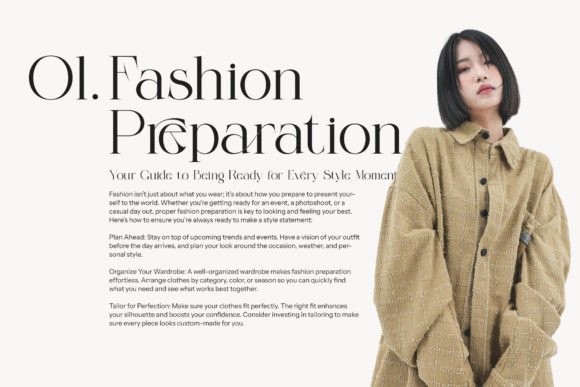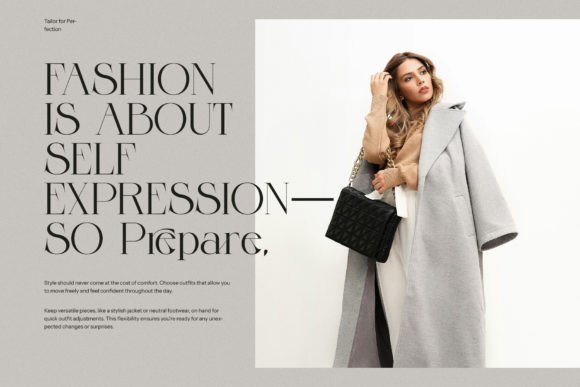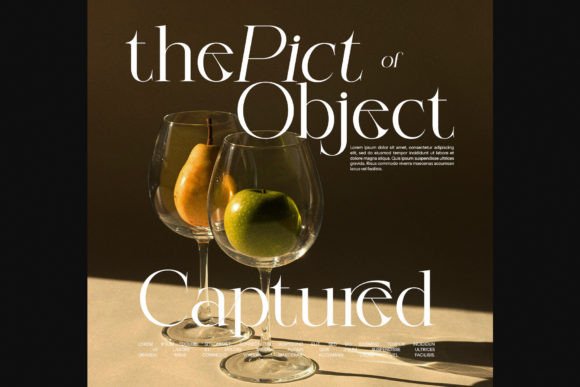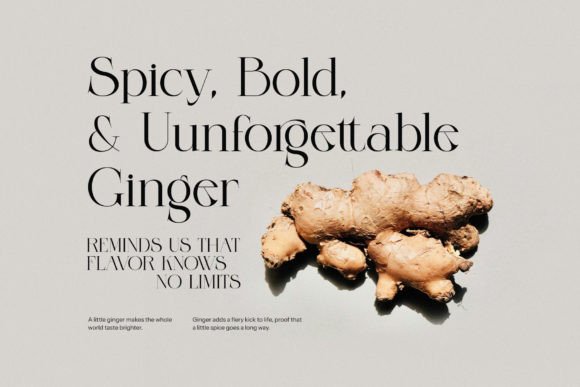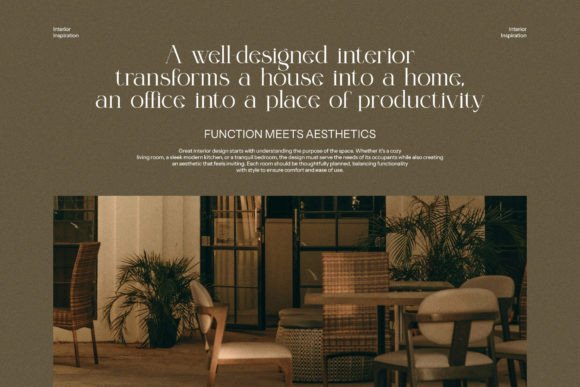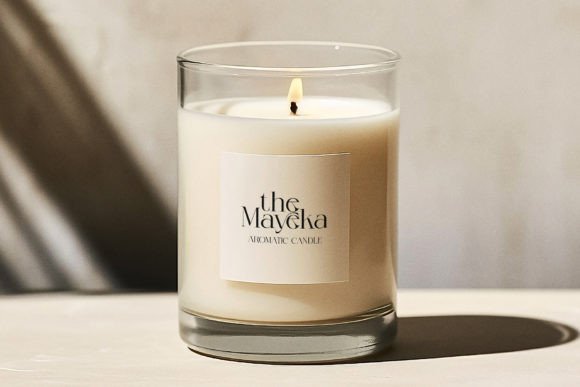
Introducing Forest Font: Elevate Your Designs with Elegance and Sophistication
In the world of typography, fonts play a crucial role in conveying the tone and aesthetic of a design. For designers and crafters seeking to add a touch of elegance and sophistication to their projects, Forest Font is an excellent choice. This beautiful serif font boasts smooth, classic letters that exude refinement and poise, making it perfect for a wide range of applications.
What is Forest Font?
Forest Font is an elegant serif font characterized by its clean lines, stylish curves, and timeless appeal. Its classic design ensures that it remains versatile and adaptable, suitable for various design needs. Whether you’re working on a logo, invitation, or any project that requires a sophisticated look, Forest Font is an ideal selection.
Key Features of Forest Font
- Elegant Serif Design: Forest Font features a traditional serif design with smooth, flowing lines that add a touch of sophistication to any text.
- Clean and Classic: The font’s clean and classic appearance makes it highly legible and versatile, suitable for a wide range of design applications.
- Stylish Curves: The stylish curves in Forest Font add a level of refinement and elegance, making it perfect for designs that require a high level of sophistication.
- Timeless Appeal: The font’s timeless design ensures that it remains relevant and effective, even as design trends evolve.
Use Cases for Forest Font
Forest Font’s versatility and elegance make it suitable for a variety of design projects. Here are some use cases where Forest Font truly shines:
- Logos: Create a lasting impression with a logo that exudes elegance and sophistication. Forest Font is perfect for luxury brands, high-end services, or any business that wants to convey a sense of refinement.
- Invitations: Add a touch of class to your invitations, whether it’s for a wedding, formal event, or corporate gathering. Forest Font’s elegant design ensures that your invitations make a lasting impression.
- Print Materials: Elevate your print materials, such as brochures, flyers, and business cards, with Forest Font’s sophisticated look.
- Digital Content: Use Forest Font to add a touch of elegance to your digital content, including website headers, social media graphics, and email newsletters.
Why Choose Forest Font?
With so many fonts available, why choose Forest Font for your design projects? Here are a few compelling reasons:
- Unique and Memorable: Forest Font’s elegant design ensures that your text stands out and leaves a lasting impression.
- Highly Legible: The font’s clean lines and classic design make it highly legible, even at small sizes.
- Versatile: Forest Font is suitable for a wide range of design applications, from logos and invitations to print materials and digital content.
- Timeless: The font’s timeless design ensures that it remains effective and relevant, even as design trends evolve.
Tips for Using Forest Font Effectively
To get the most out of Forest Font, consider the following tips:
- Pair with Complementary Fonts: Pair Forest Font with complementary fonts to create visual interest and hierarchy in your designs.
- Use for Headings and Titles: Use Forest Font for headings and titles to add a touch of elegance and sophistication to your designs.
- Experiment with Colors: Experiment with different colors to find the perfect combination that complements your design and enhances the font’s elegance.
In conclusion, Forest Font is an excellent choice for designers and crafters seeking to add a touch of elegance and sophistication to their projects. Its classic design, stylish curves, and timeless appeal make it perfect for a wide range of applications. By incorporating Forest Font into your design workflow, you can create stunning designs that leave a lasting impression.